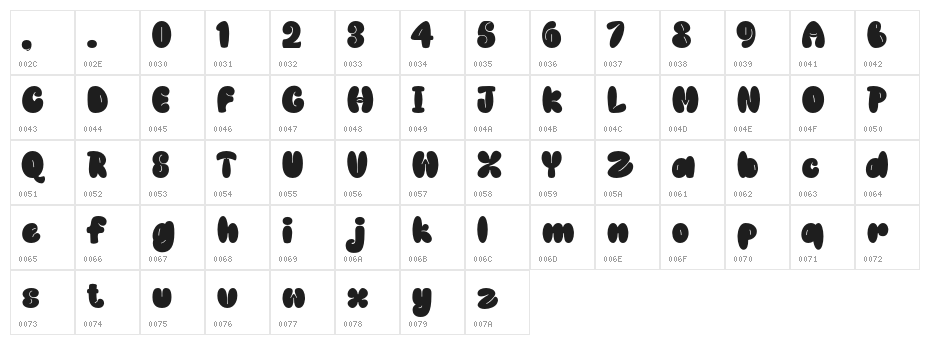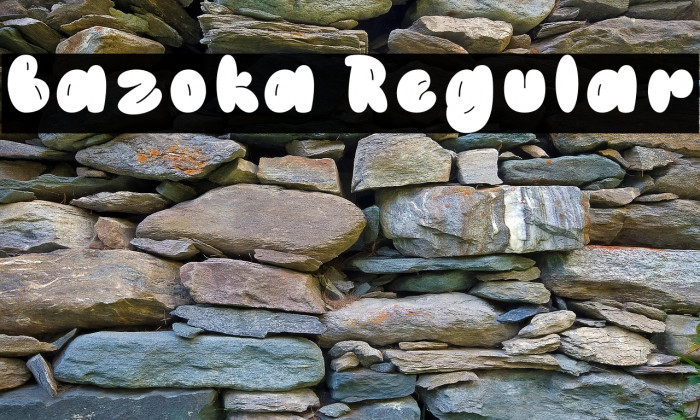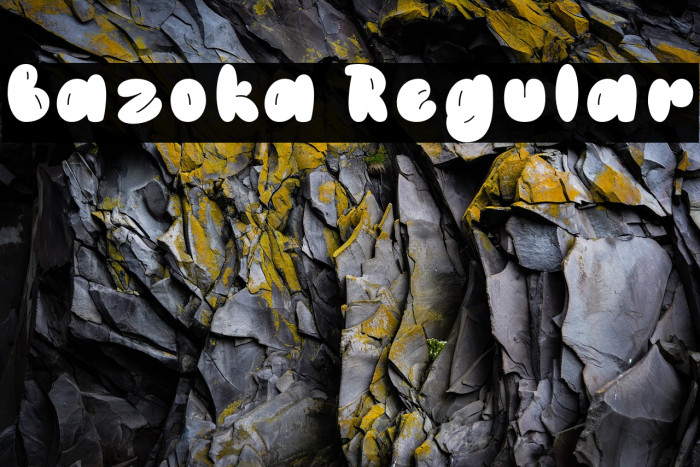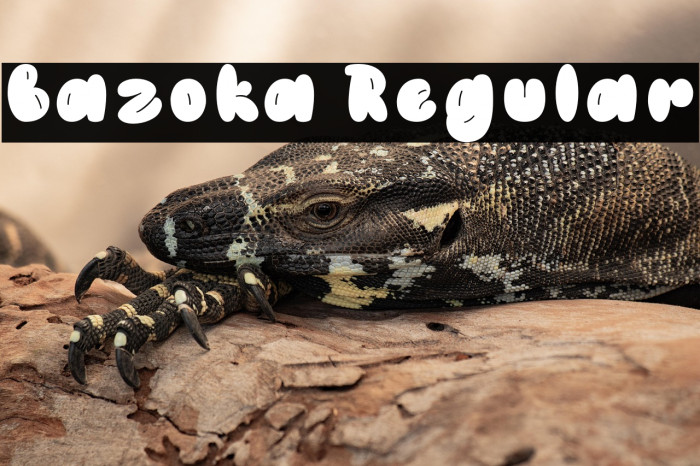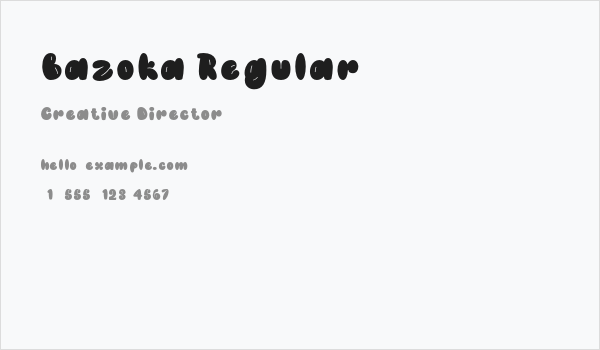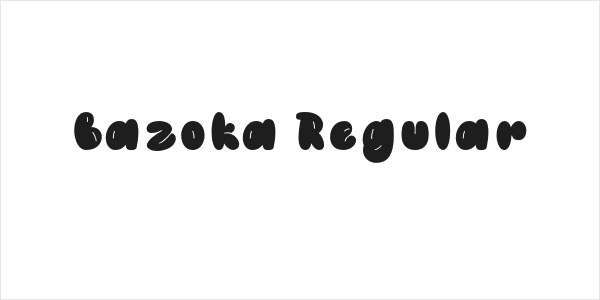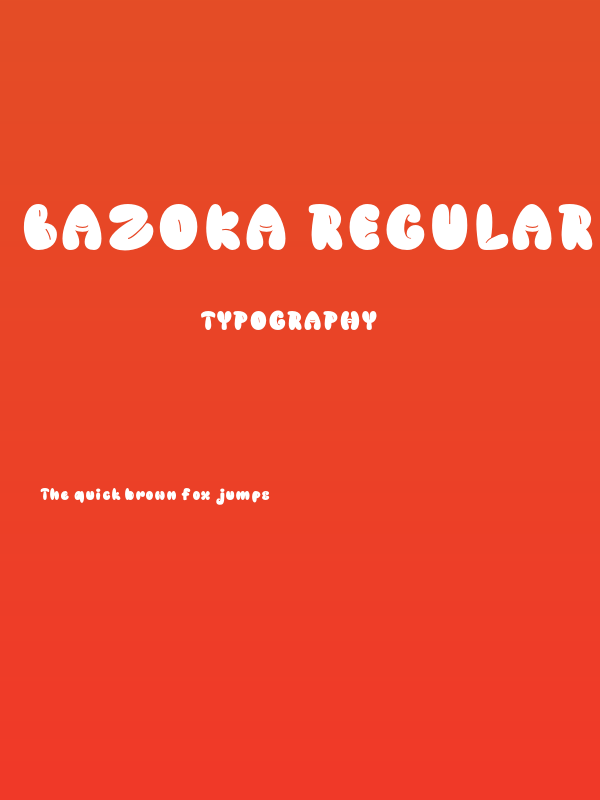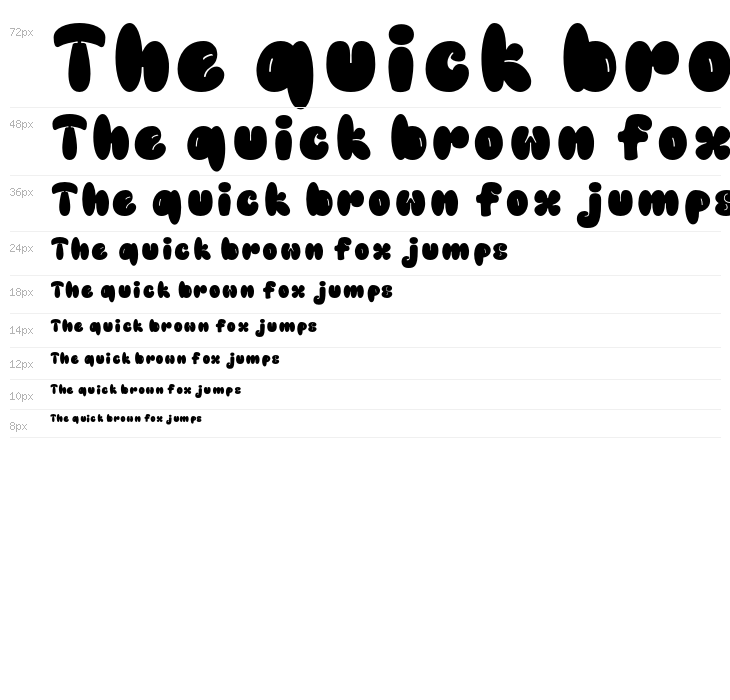
Bazoka Regular Font
Bazoka Regular Description
This playful and bold typeface features thick, rounded characters with a bubbly appearance. The letters are characterized by their smooth, flowing curves and a sense of whimsy, making them stand out with a friendly and approachable vibe. The font's design includes a consistent stroke width, contributing to its cohesive and unified look. The characters are slightly condensed, enhancing their compact and robust feel. This font is ideal for creating eye-catching designs that require a touch of fun and creativity.
| Overall Style | Playful, Fun |